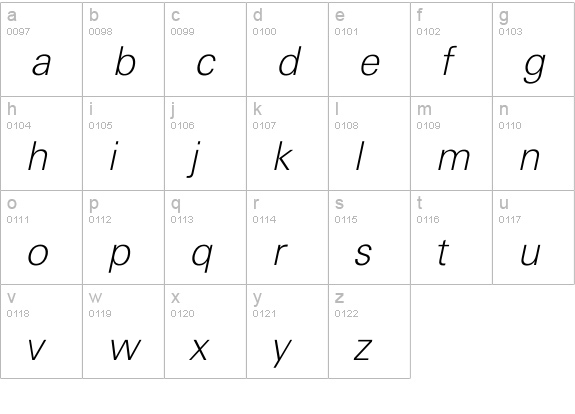
Introducing the magnificent Iultimate Xlight font, a true masterpiece in the world of typography. This font is the epitome of elegance, sophistication, and modernity, making it the perfect choice for all your design projects. With its sleek and slender letterforms, Iultimate Xlight boasts a sense of lightness and delicacy that is simply breathtaking. Each character is meticulously crafted to perfection, ensuring a seamless and harmonious flow that will captivate any viewer. What makes Iultimate Xlight even more remarkable is that it is available to you for free! Yes, you read that right. This extraordinary font can be downloaded at absolutely no cost from FontsMarket.com. We believe that creativity should be accessible to all, and that is why we are delighted to offer this stunning font as a gift to designers, artists, and enthusiasts alike. Whether you're designing a logo, creating a poster, or crafting a stylish website, Iultimate Xlight will bring your visions to life with its effortless grace and timeless appeal. Its versatility allows it to shine in both digital and print media, making it the ultimate choice for any project. So why wait? Don't miss out on the opportunity to enhance your designs with this remarkable font. Visit FontsMarket.com today and download Iultimate Xlight for free. Unleash your creativity and let this font elevate your designs to new heights.